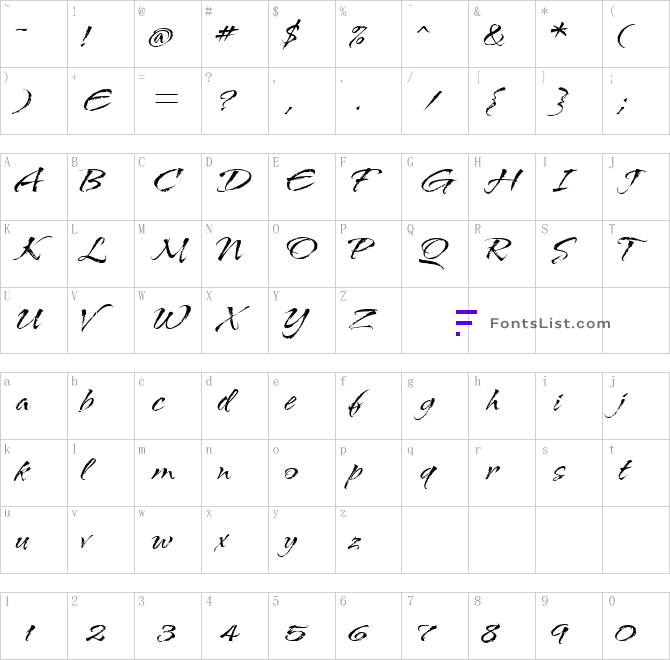
- Font Name:AridITC
AridITC.ttf is a very beautiful artistic font, AridITC.ttf is widely used in the design and printing of various books and pictures,AridITC.ttf has a strong visual impact,AridITC.ttf is a commonly used font in newspapers, magazines and books, and is used in posters, e-commerce Poster design, store design, logo design, font design and other fields.AridITC.